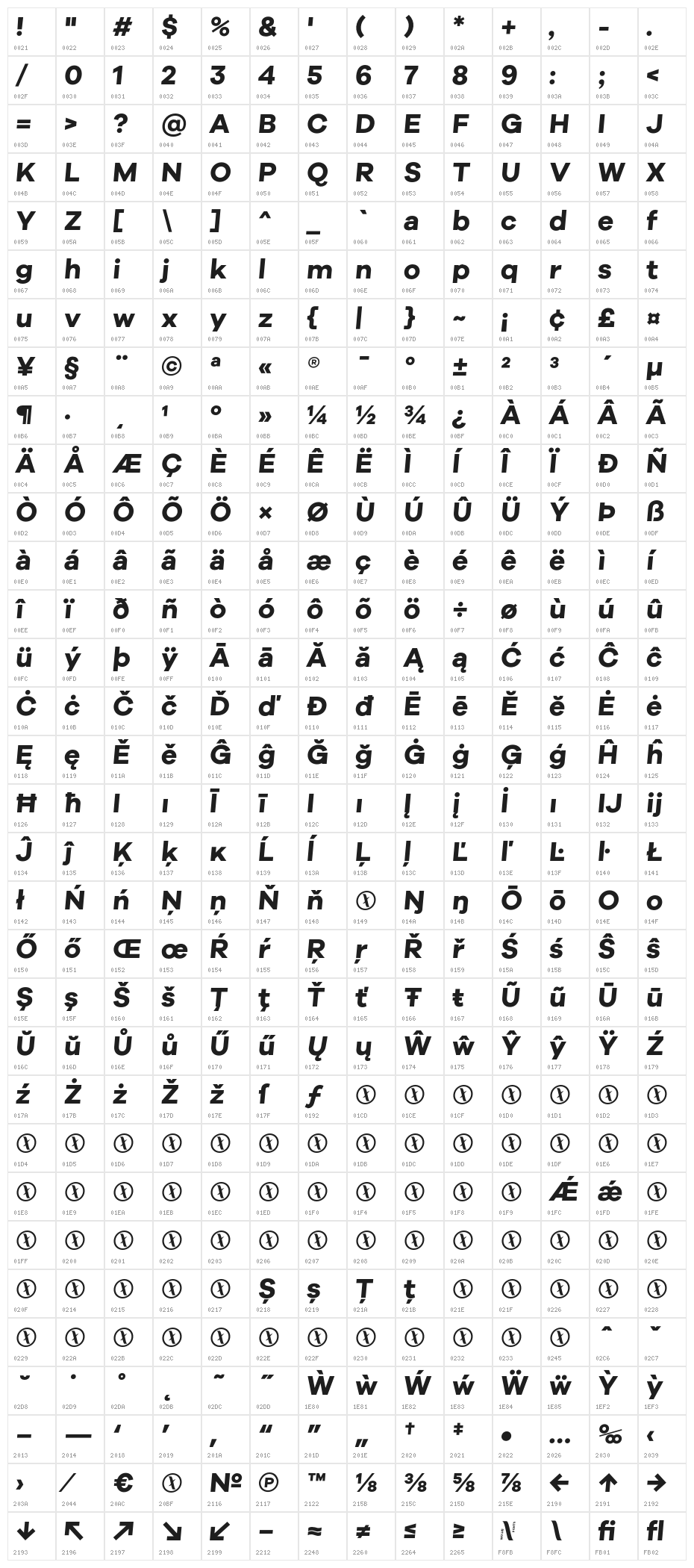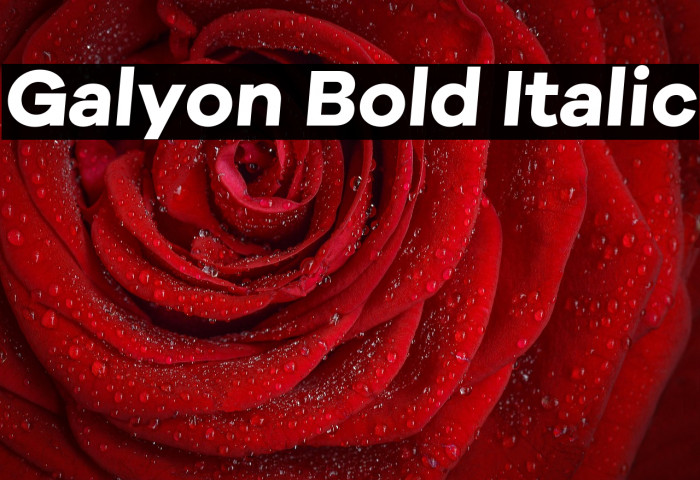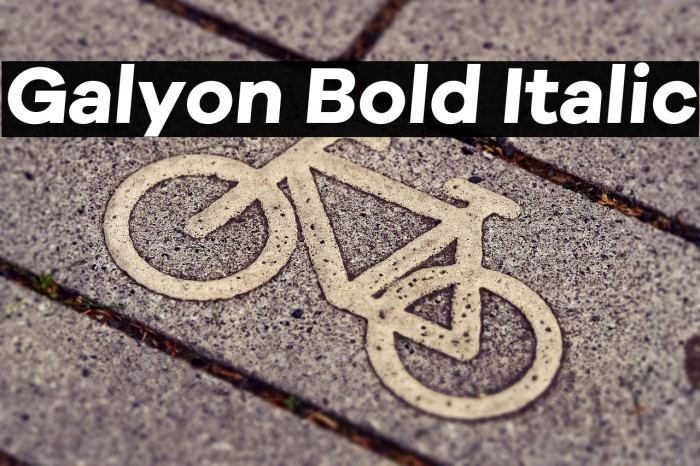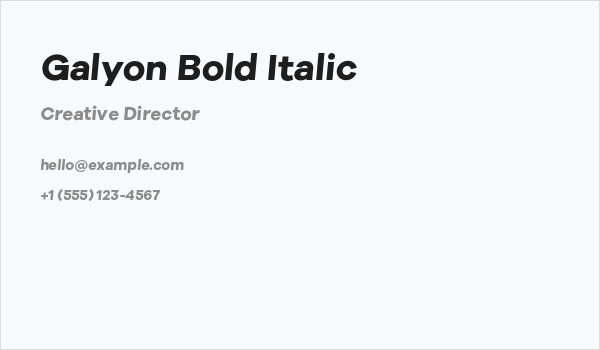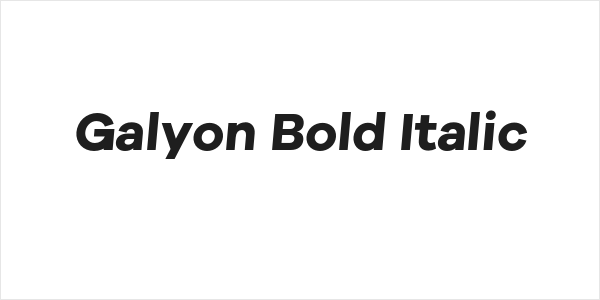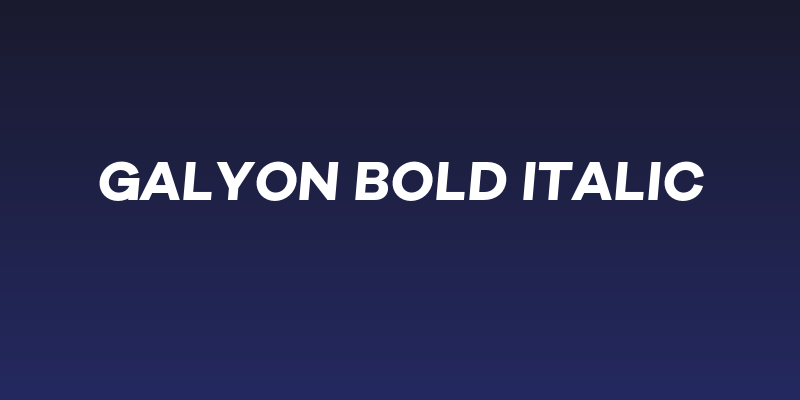
Galyon Bold Italic Font
Galyon Bold Italic Description
This font features a bold and italicized style, characterized by its strong presence and dynamic slant. The uppercase letters are robust and commanding, while the lowercase letters maintain a consistent flow with a slight forward tilt, enhancing readability. The numerals are clear and bold, matching the overall weight of the alphabet. Special characters are distinct and well-defined, ensuring versatility in various applications. The font's design is modern, with a sans-serif structure that emphasizes clarity and impact. Its boldness and italic nature make it suitable for attention-grabbing headlines and titles.
Use CaseHeadlines, Logos, Branding
Proposed ProjectsIdeal for branding, advertising, headlines, and editorial design where a strong and modern impression is needed.